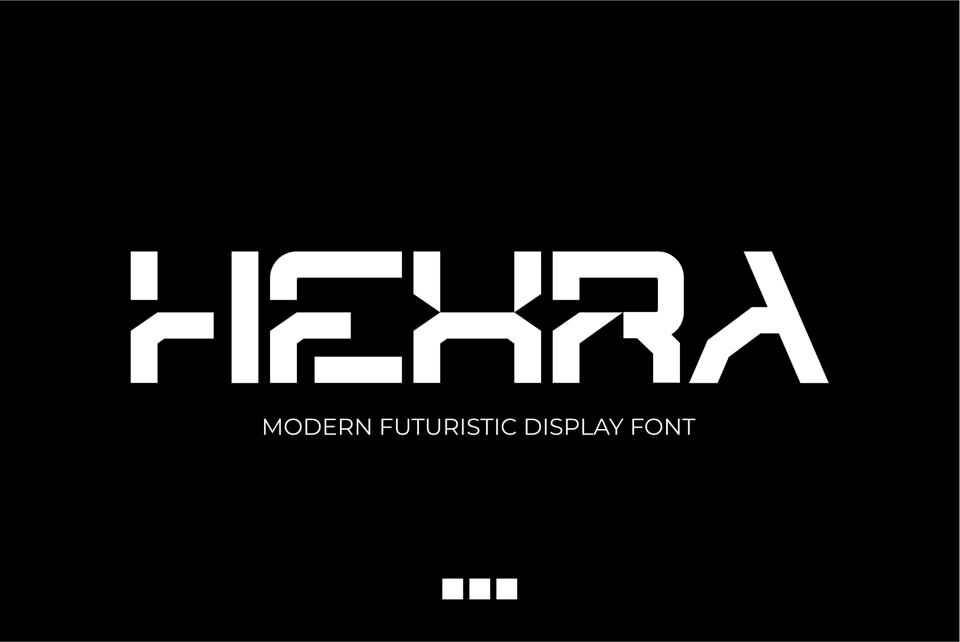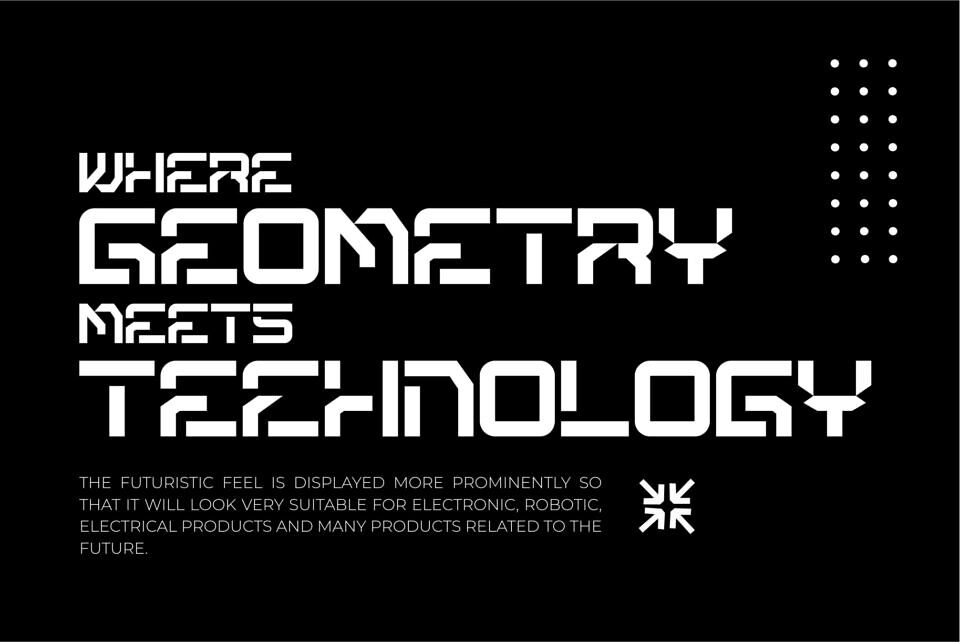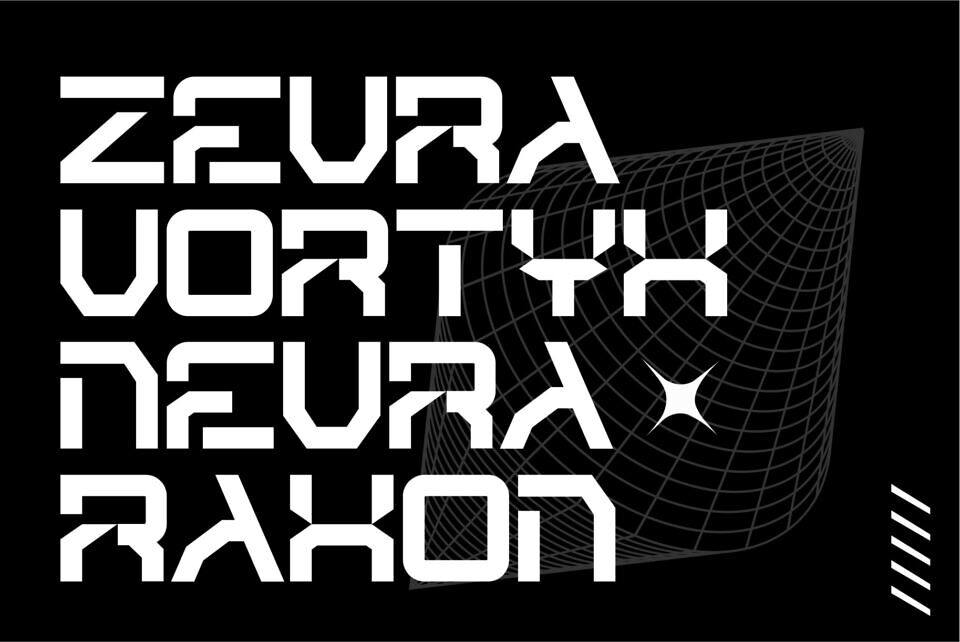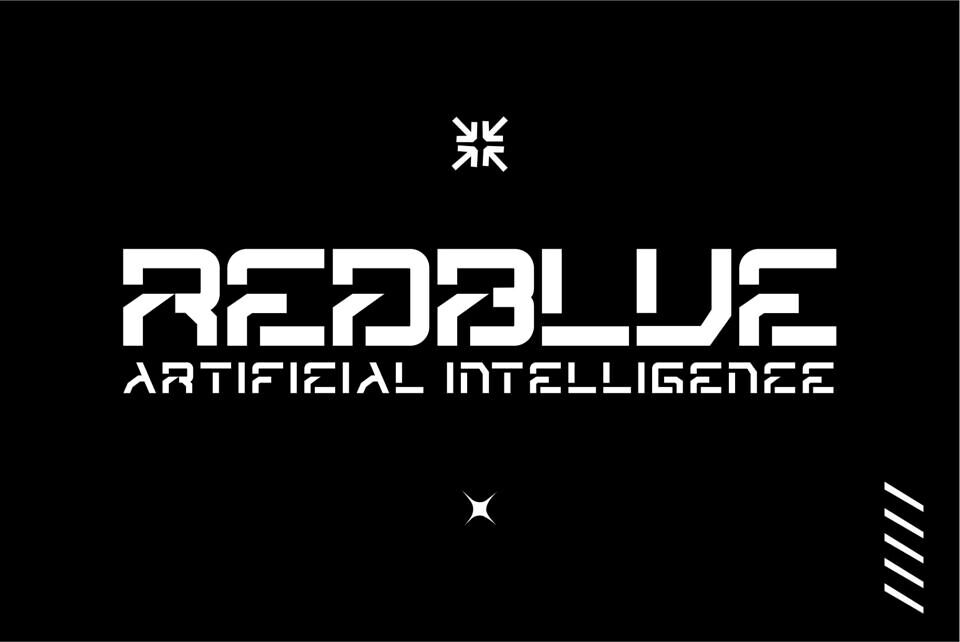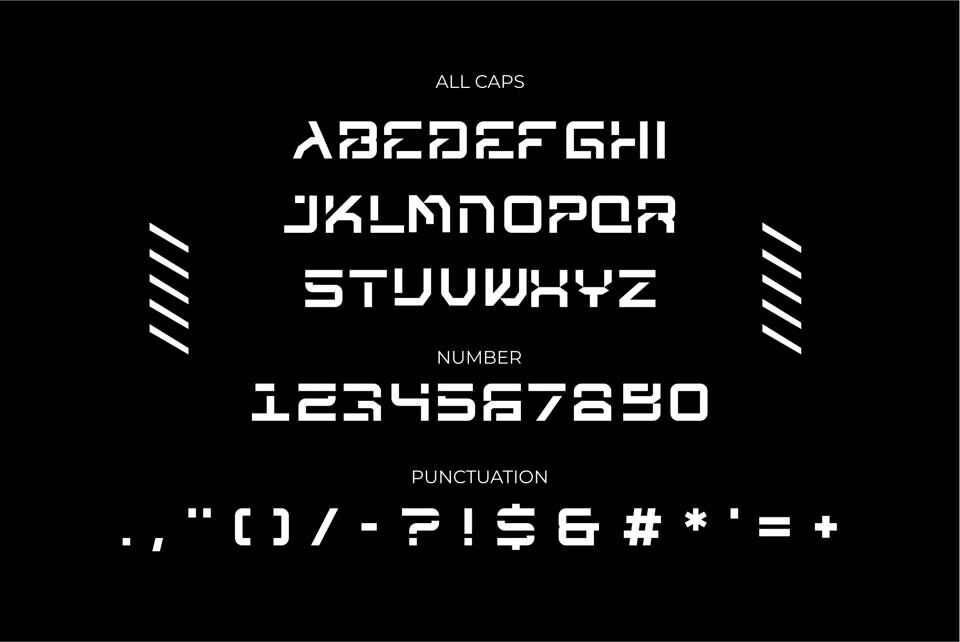
Hexra Font
HEXRA is a modern display font that exudes a clean, futuristic look. Its geometric design and balanced proportions make it perfect for conveying a high-tech, forward-thinking vibe.
Ideal for headlines, logos, and branding, HEXRA is well-suited for projects that require a modern tone, such as tech, sci-fi, gaming, and digital interfaces. Its crisp style makes it great for promotional materials, posters, and websites, bringing a confident and sharp feel to any design.